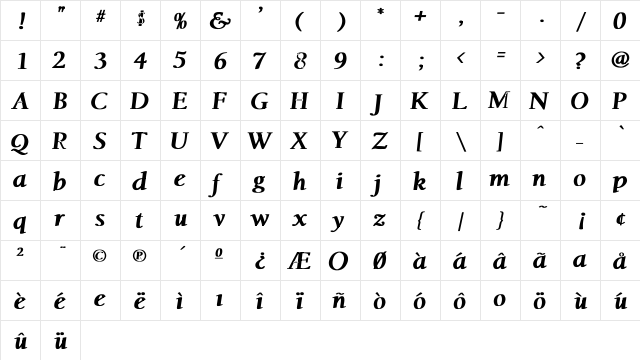
RSJacksonville BOLD Bold
Design Context for RSJacksonville BOLD Typeface
RSJacksonville BOLD takes a measured approach to typography — its balanced proportions and neutral character make it a reliable workhorse for both digital and print work. The heavy weight commands attention and anchors typographic hierarchies.